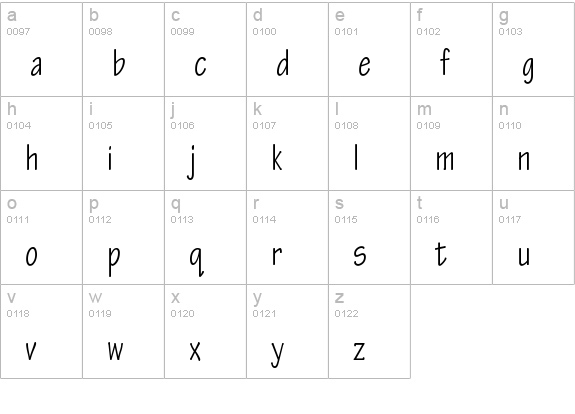
Tekton Pro Condensed is a distinctive, condensed-width variant in the Tekton typeface family \xE2\x80\x94 well suited to design and typography projects.
Tekton Pro Condensed is a versatile and sophisticated font that exudes a sense of professionalism and elegance. This condensed version of the popular Tekton Pro font is perfect for projects where space is limited, without sacrificing legibility or style. With its clean lines and modern aesthetic, Tekton Pro Condensed is suitable for a wide variety of design applications. It is particularly well-suited for headlines, titles, and subheadings, adding a touch of refinement and sophistication to any project. This font family features a range of weights and styles, allowing for endless creative possibilities. From bold and impactful to light and subtle, Tekton Pro Condensed offers a versatile range of options that can be customized to suit any design theme or mood. What sets Tekton Pro Condensed apart is that it is freely available for download at FontsMarket.com. This means that designers, enthusiasts, and creatives alike can access this exceptional font without any cost or restrictions. Whether you are a professional designer working on a client project, a student completing an assignment, or an individual looking to enhance your personal creations, Tekton Pro Condensed is there to meet your needs. So why wait? Unlock your creativity and elevate your designs with the timeless elegance of Tekton Pro Condensed. Download it for free today at FontsMarket.com and experience the countless possibilities that this font has to offer.